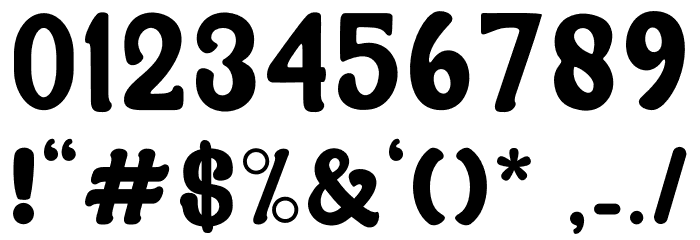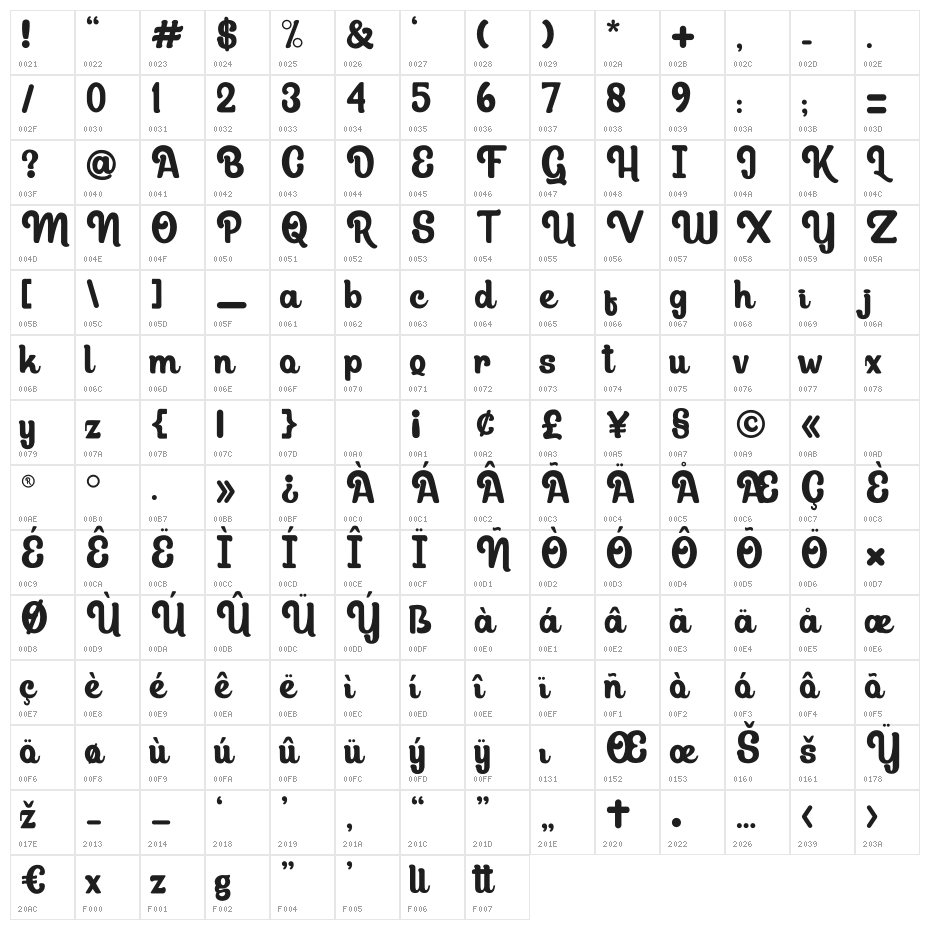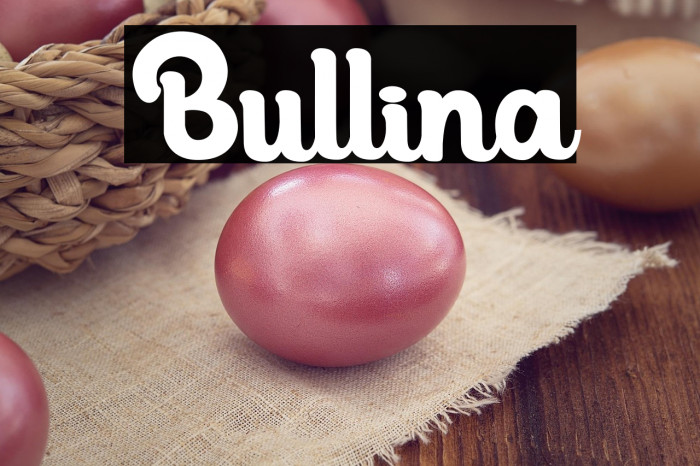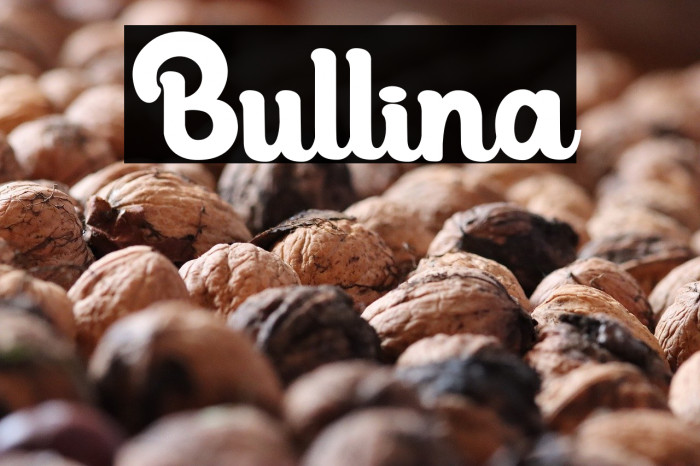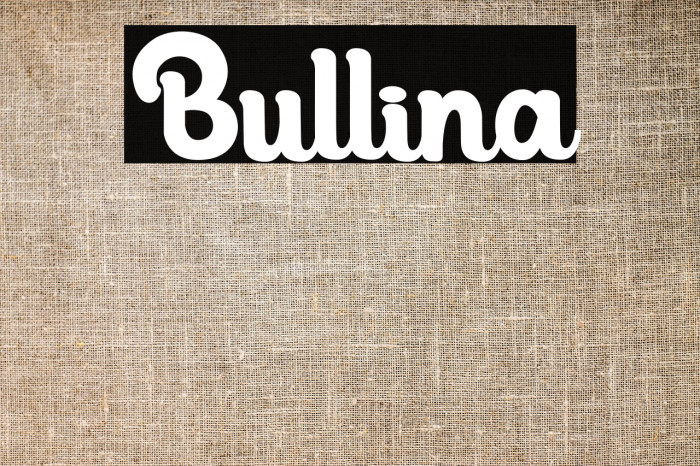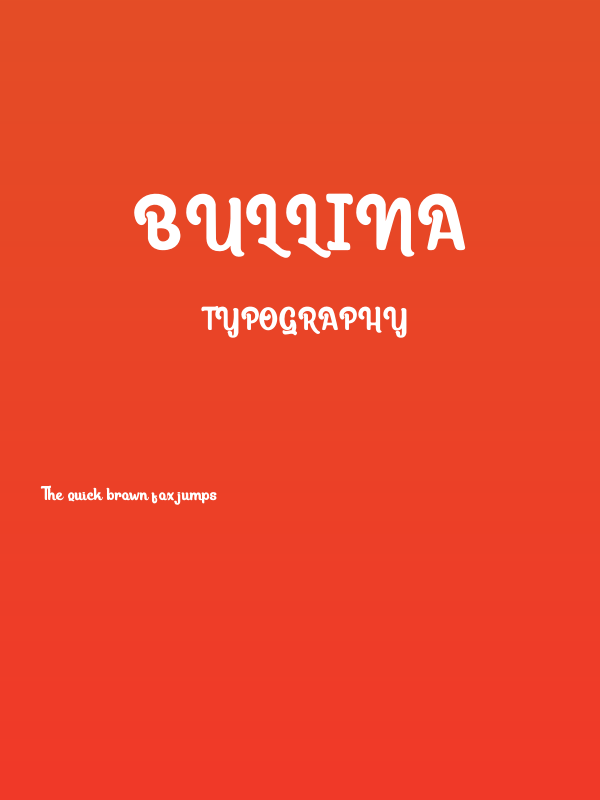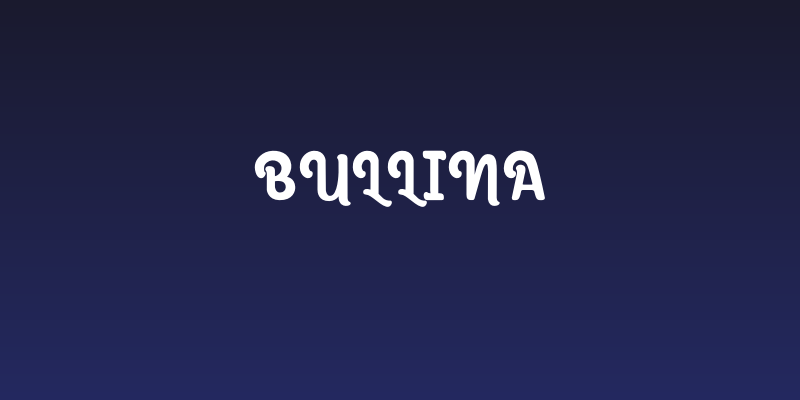
Bullina Font
Bullina Description
This font features a playful and bold design with rounded edges and a whimsical style. The characters have a consistent thickness, creating a uniform appearance that is both eye-catching and approachable. The uppercase letters are slightly taller than the lowercase, with a smooth transition between the two. Numbers and special characters maintain the same playful aesthetic, making them easily recognizable and cohesive with the rest of the font. The overall look is friendly and inviting, suitable for a variety of creative projects.